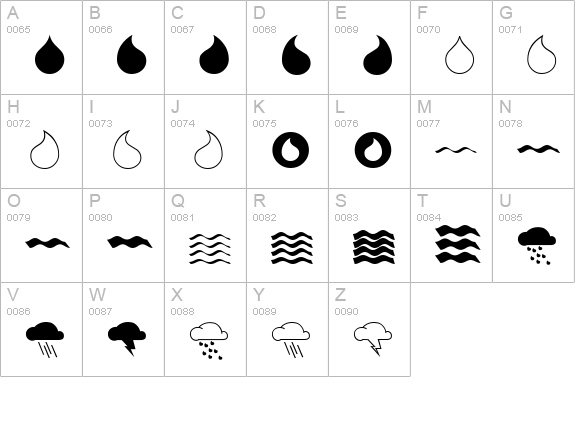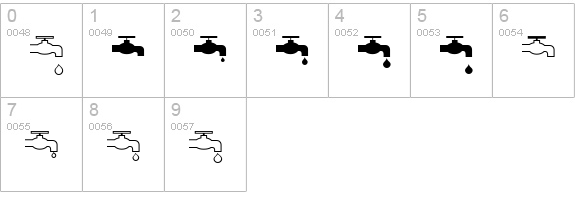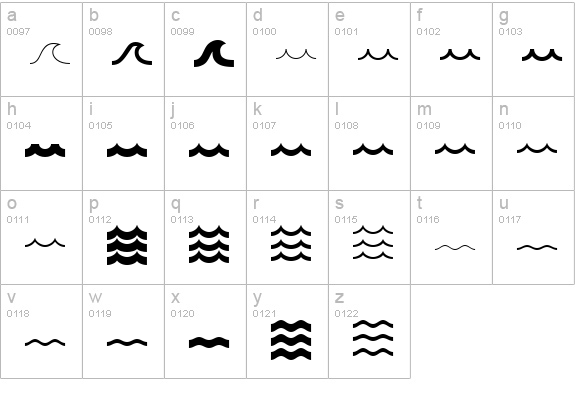
MostlyWaves Regular Font Details
MostlyWaves Regular is the standard, neutral variant in the MostlyWaves typeface family \xE2\x80\x94 well suited to general body text, paragraphs, and standard typographic work.
MostlyWaves Regular font is a versatile typeface that exudes elegance and modernity. Its sleek lines and balanced proportions make it perfect for a wide range of design projects, from branding to editorial layouts. The clean and minimalist aesthetic of MostlyWaves Regular font adds a touch of sophistication to any design. This font is free to download at FontsMarket.com, making it accessible to designers and creatives looking to elevate their projects with a stylish and contemporary typeface. Whether you're working on a website, poster, or packaging design, MostlyWaves Regular font will bring a touch of refinement to your work. Enhance your designs with this beautiful and versatile font today!